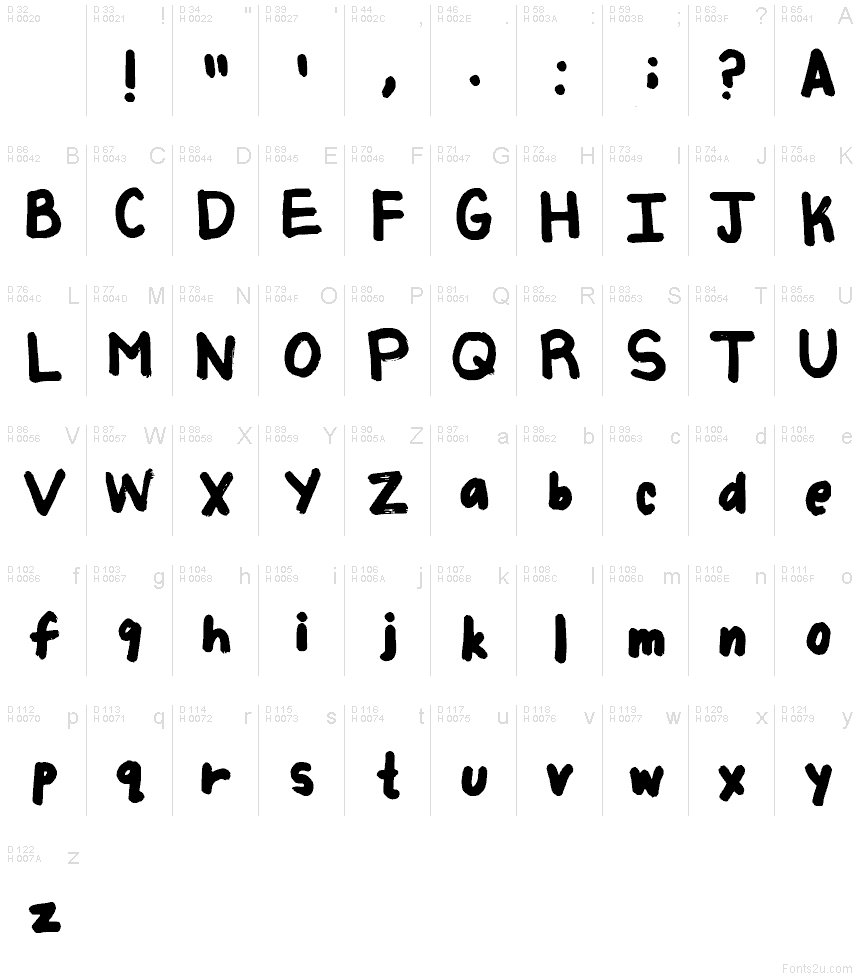
Purplellis Black Regular
Purplellis Black font by Lumi Toons is a free handwritten typeface with thick, inky strokes and soft, blobby curves that feel straight out of a sketchbook. The letters are bold and bouncy, with just enough wobble to feel human, but still clean enough to read in a quick glance. It sits in the Purplellis family as the chunky, confident sibling—the one you reach for when you want handwriting that’s loud, friendly, and full of attitude.
Using Purplellis Black, this free font shines on kids’ book covers, playful logos, comic panels, YouTube thumbnails, stickers, and bold social posts. The generous weight and rounded shapes make it pop on colorful backgrounds and busy artwork without getting lost. Try pairing Purplellis Black for headlines with a simple sans serif for small text, and you’ll get a fun, characterful look that still feels clear and organized.